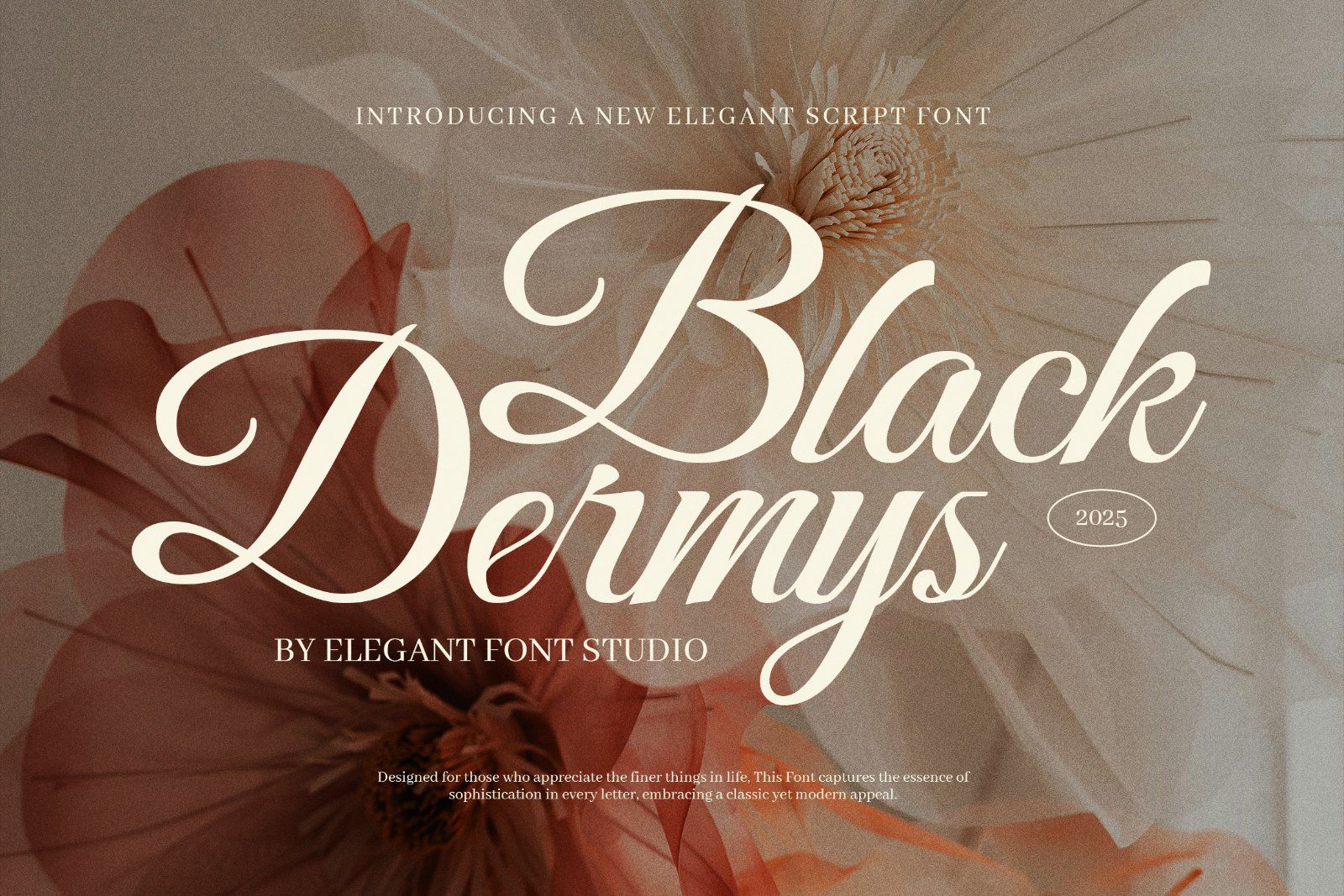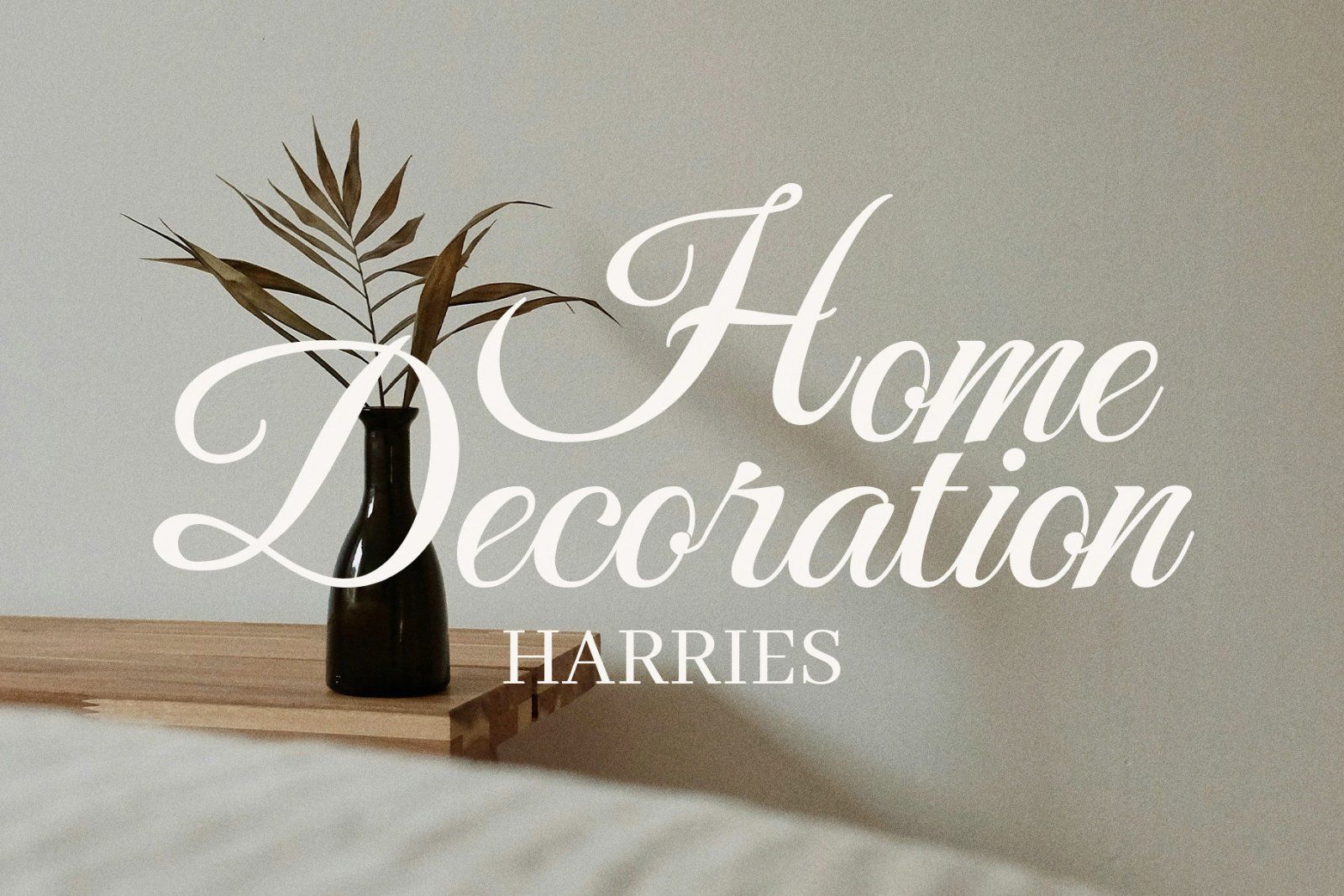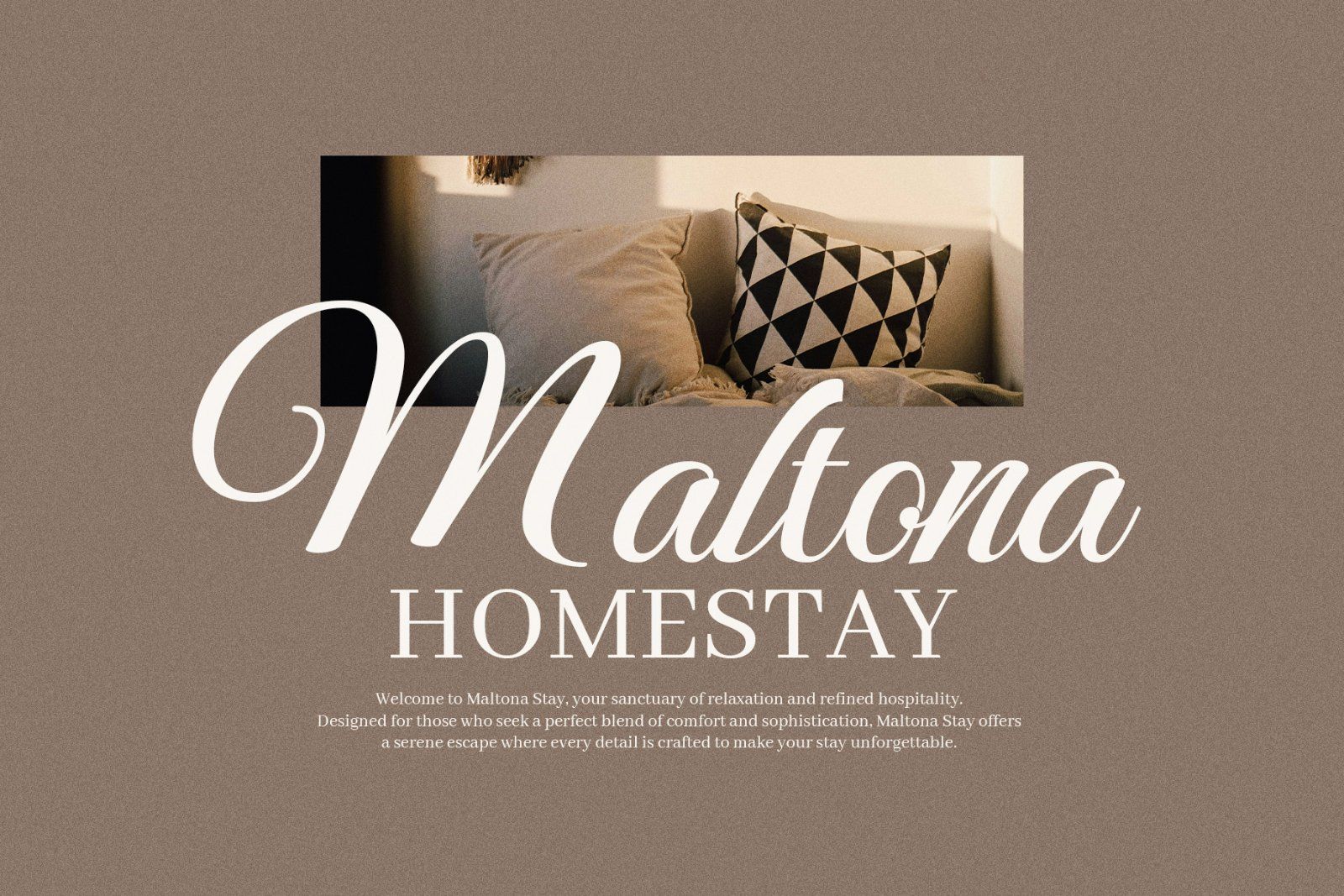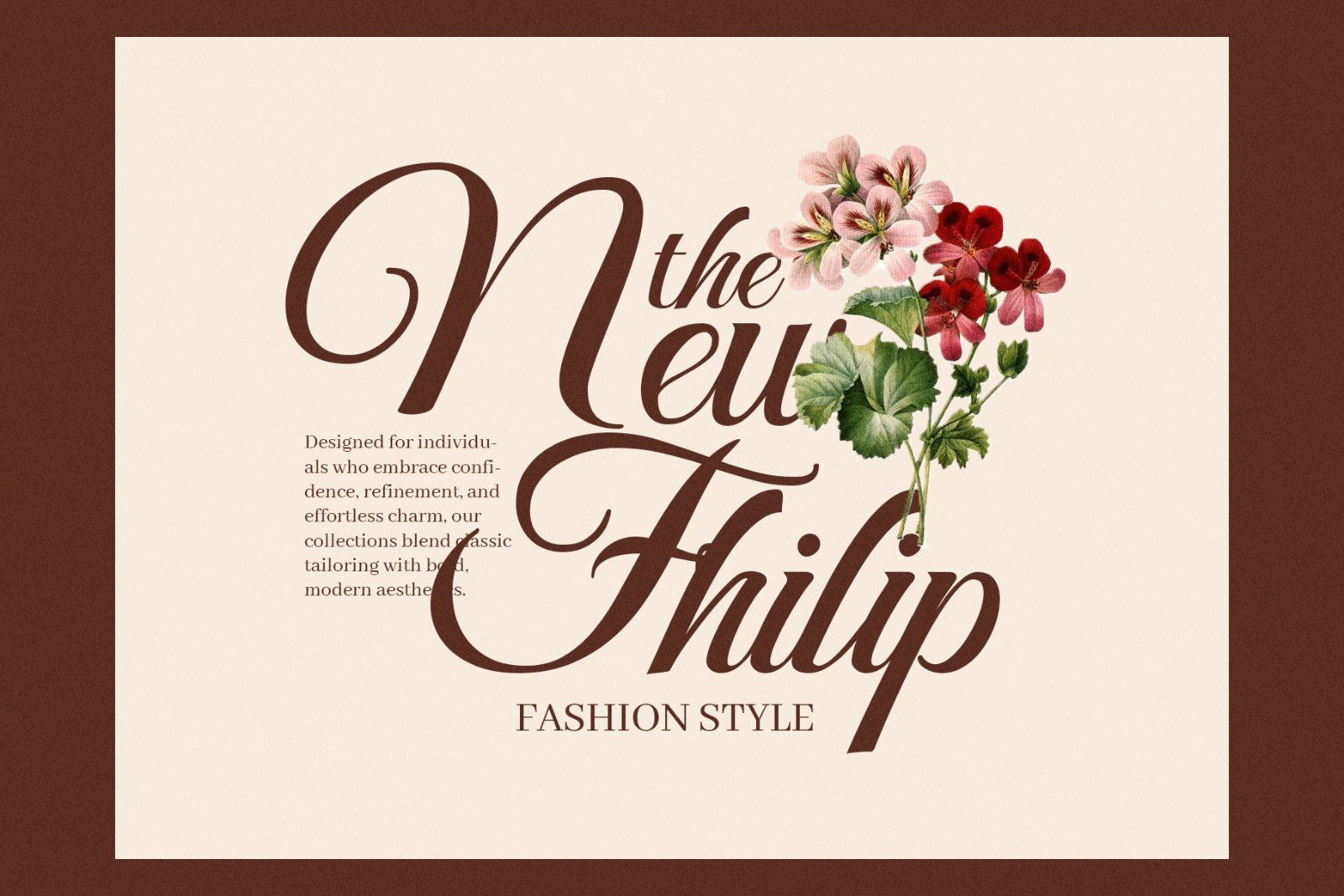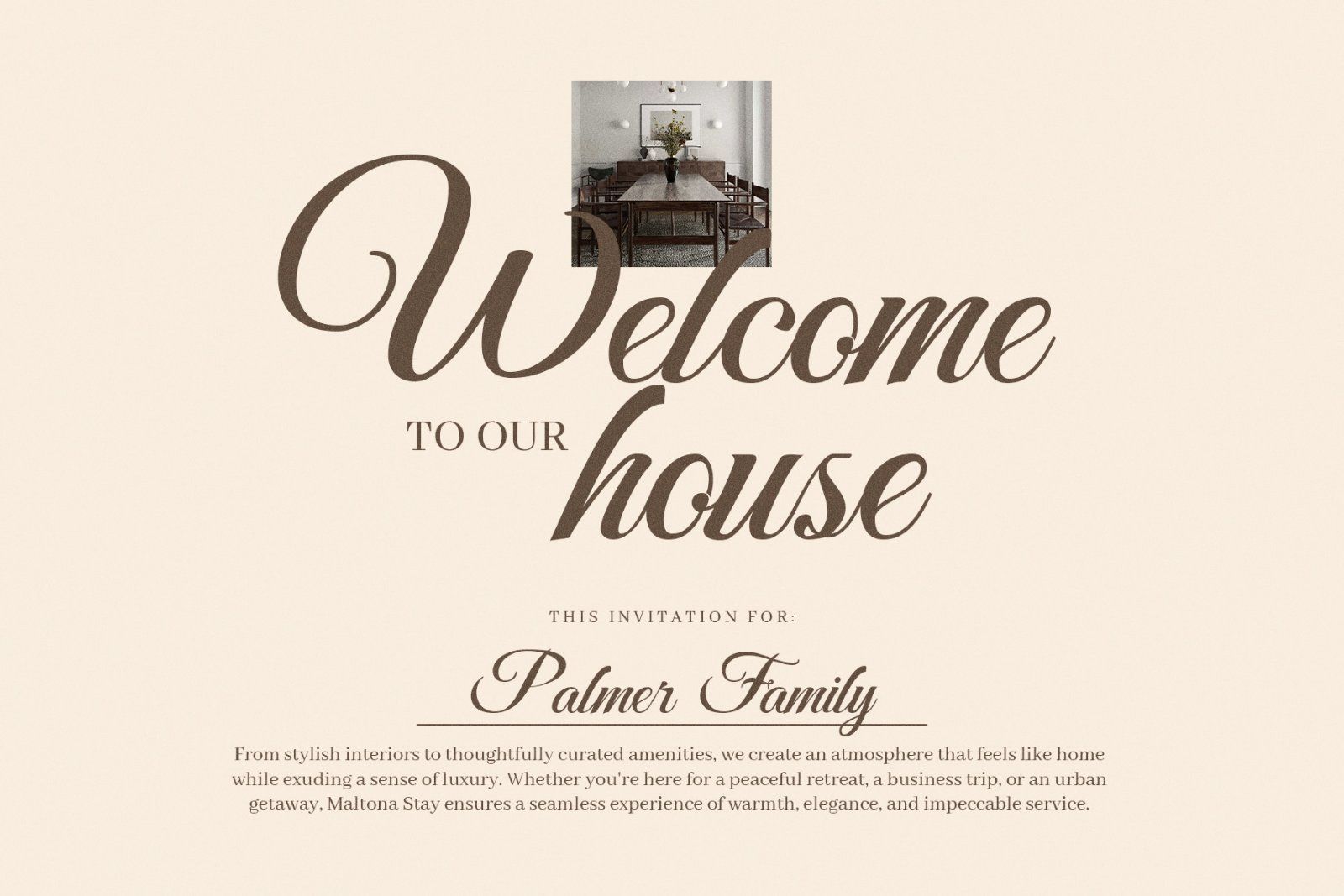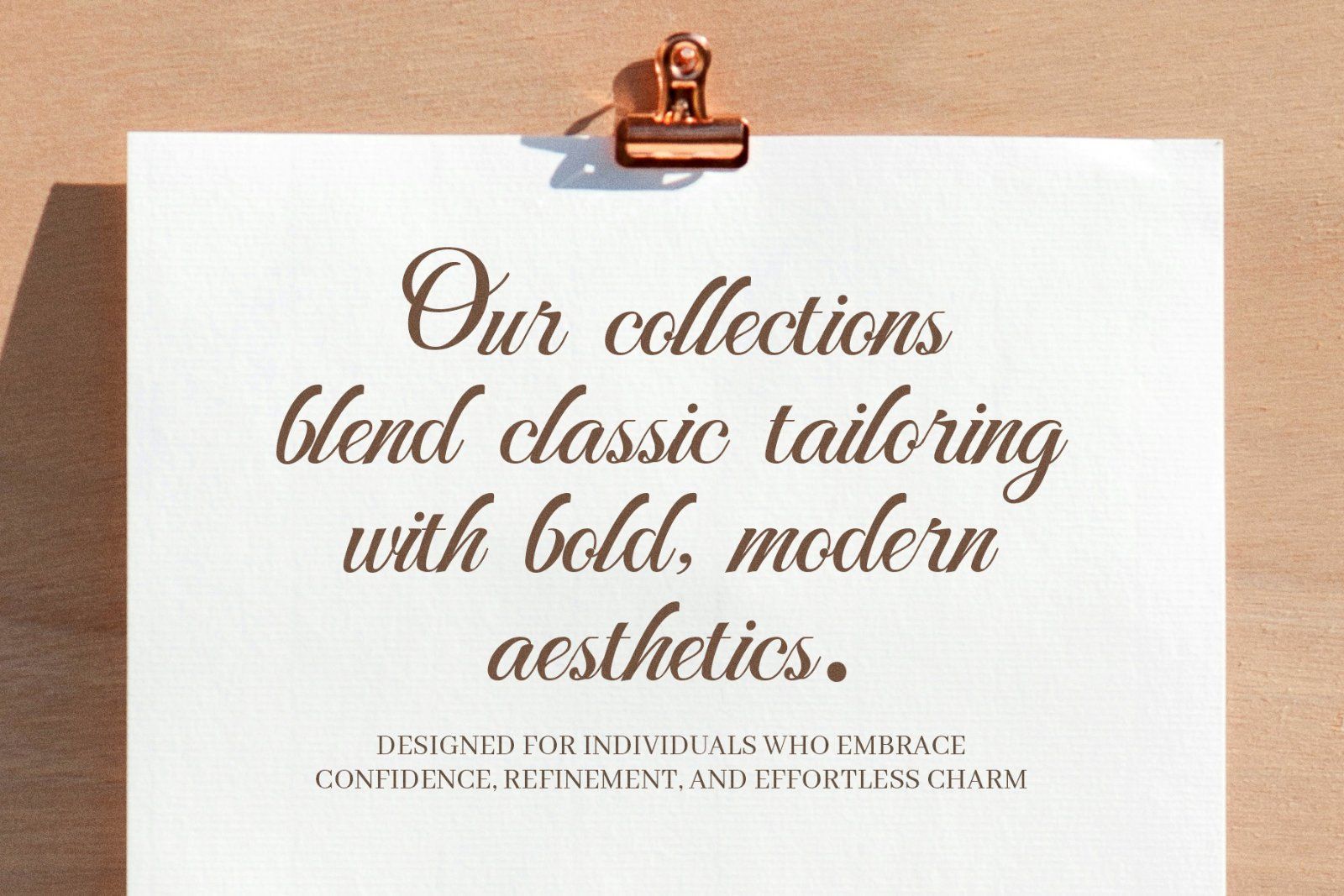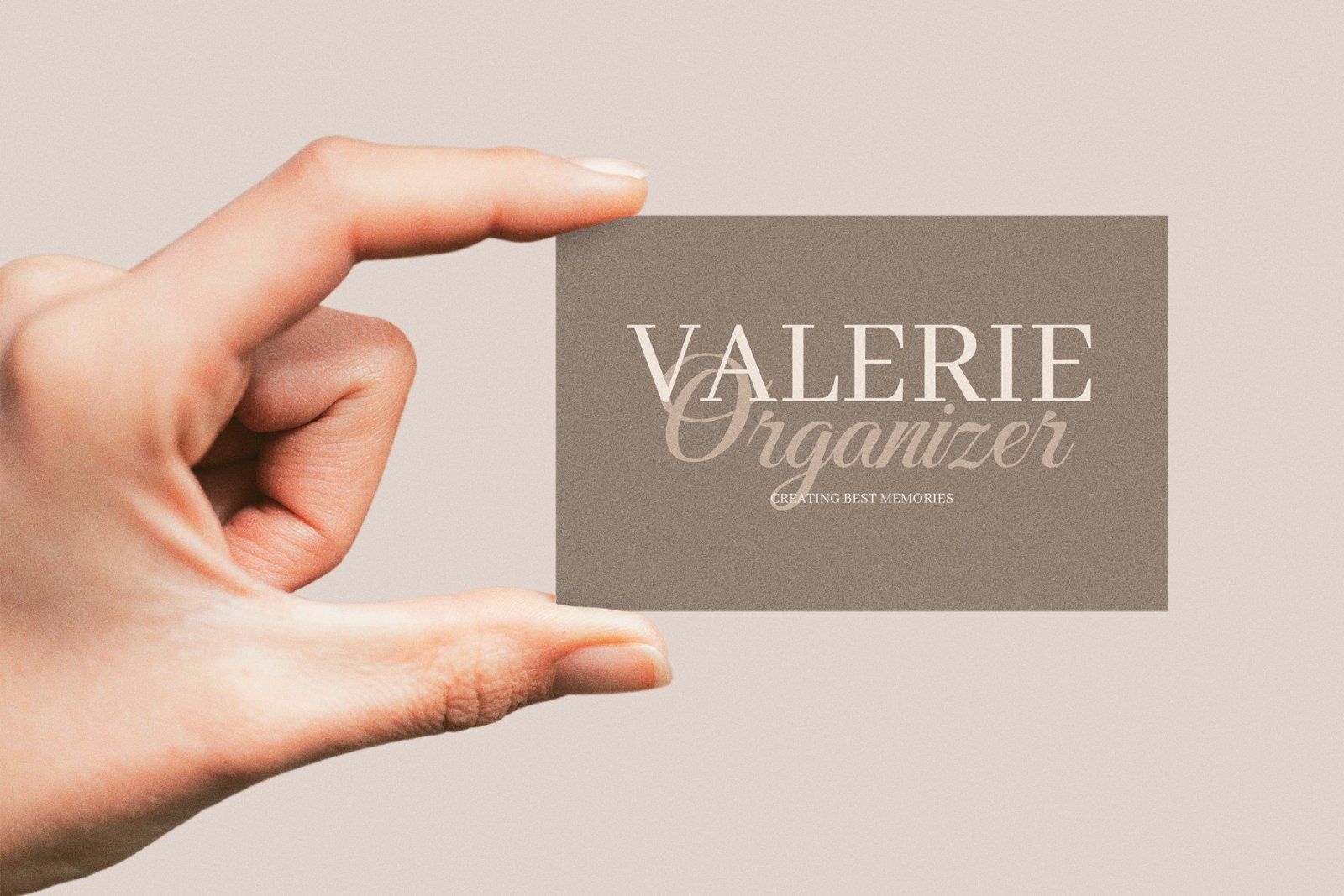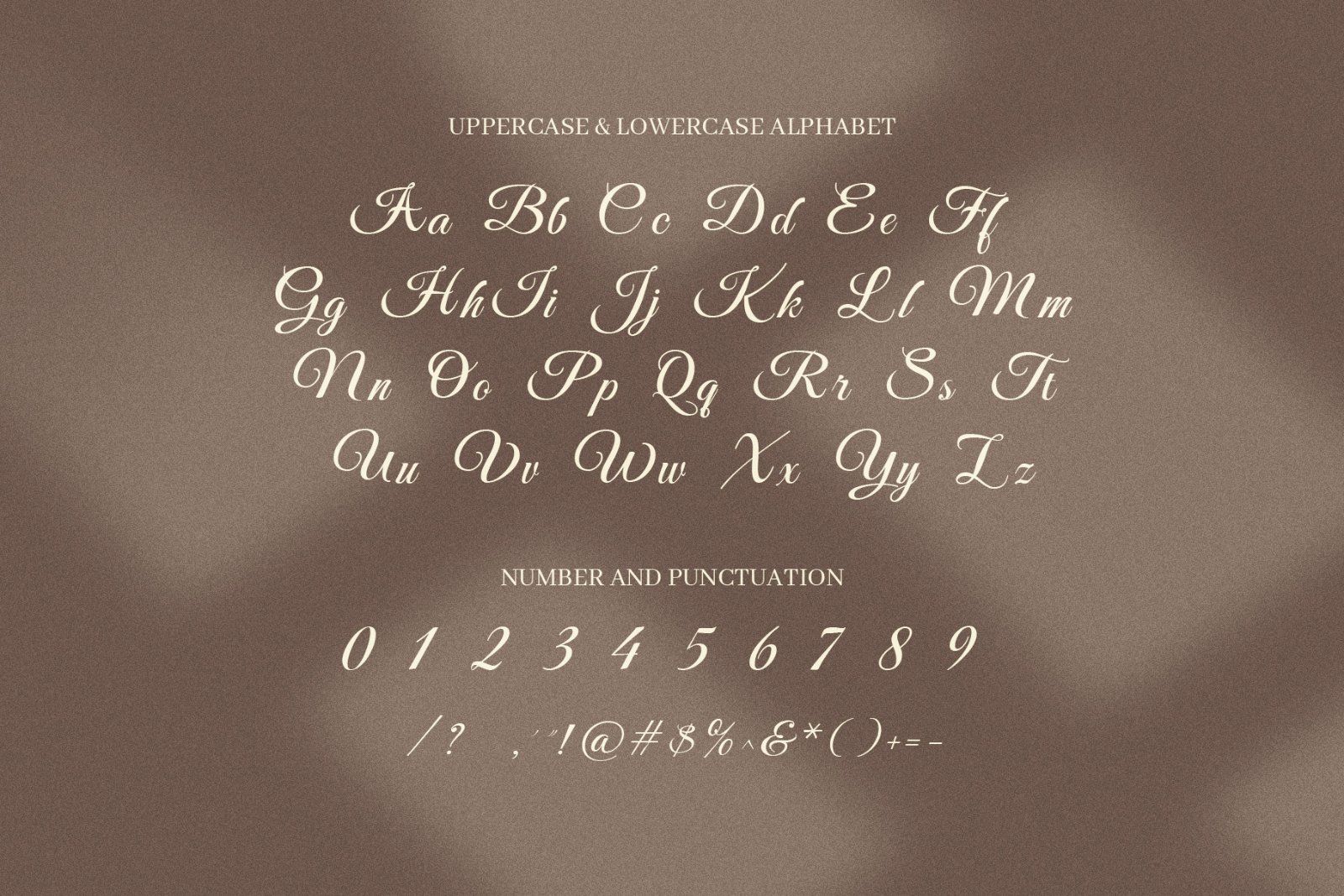
Derlyn Script is a beautiful and classy script font, made to bring charm and grace to any design. With soft curves and flowing strokes, this font captures the true feel of elegant handwriting. It comes with many alternate characters and swashes, so you can easily create unique and personal designs without extra tools.
- Elegant, handwritten calligraphy font
- Comes with alternate characters and ligatures